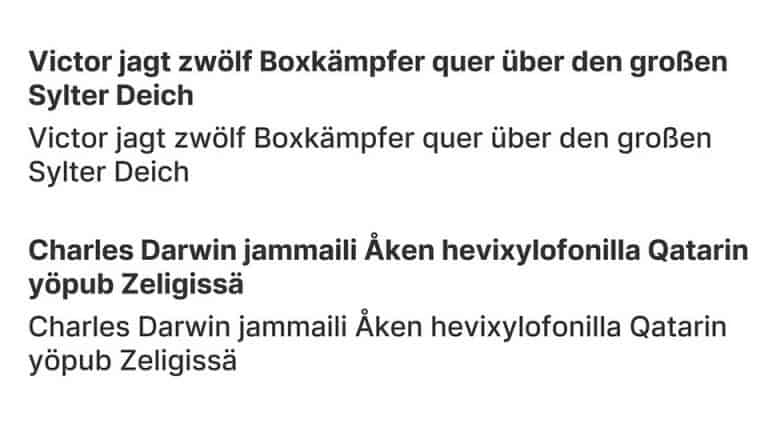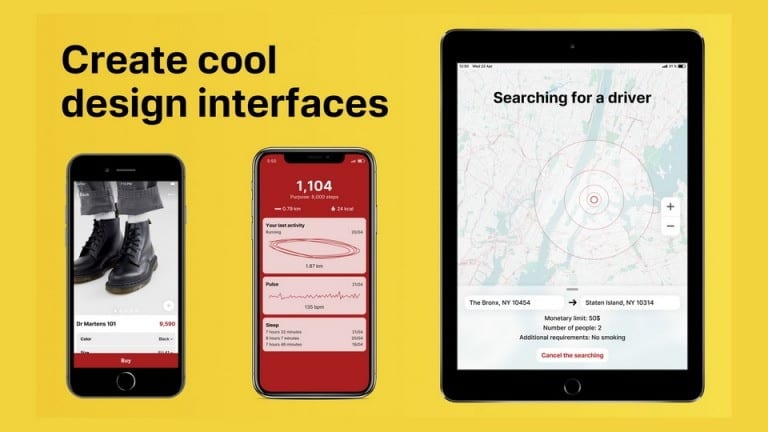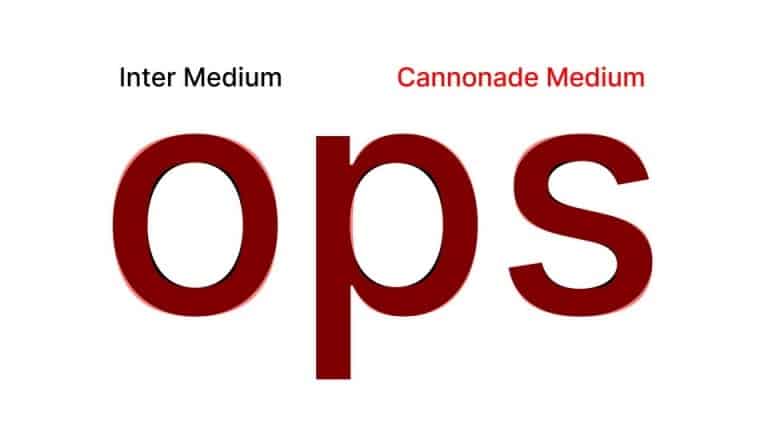
Cannonade Sans Serif Font is a distinctive modern sans serif font created by Camille Khubbetdinov. You can easily use the sans serif font feature in many areas. Cannonade is a little bit strict but elegant and simple grotesque. It can be perfectly used in mobile apps, websites and magazines. It is easy to read on small screens because of its squareness.